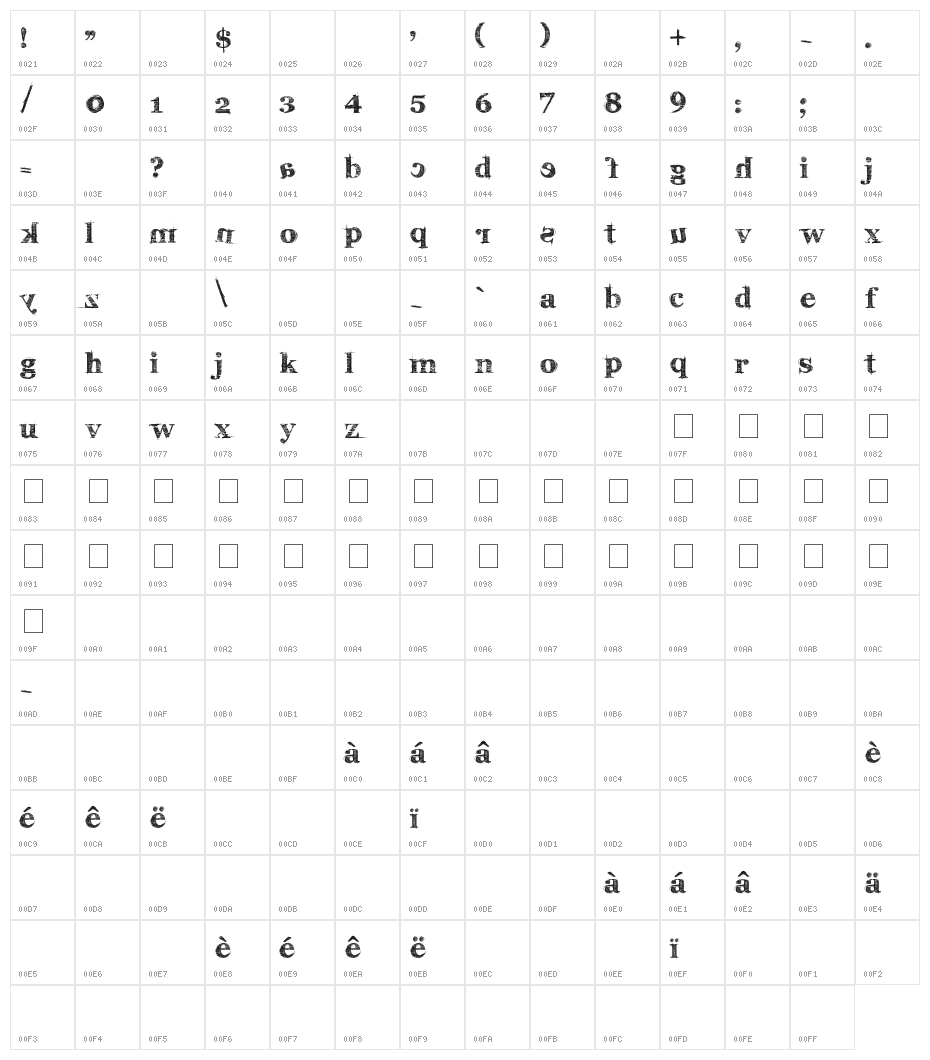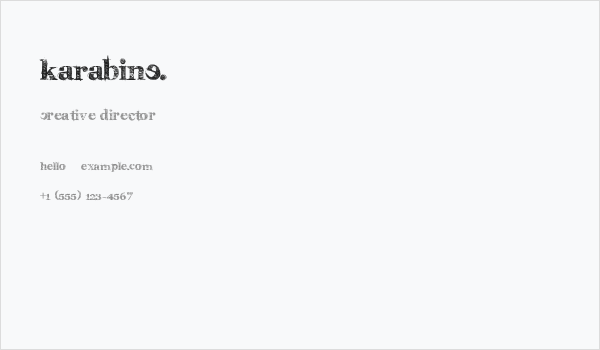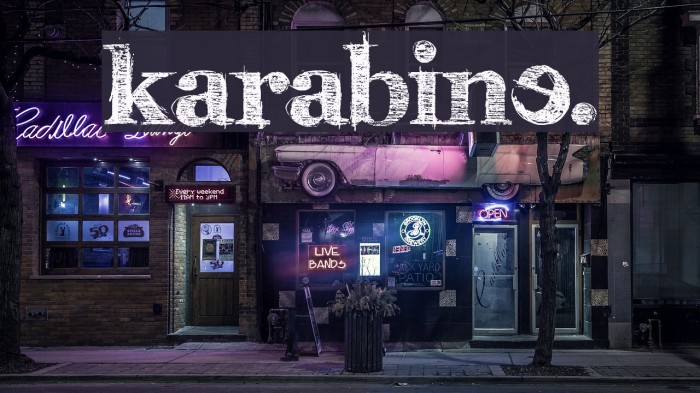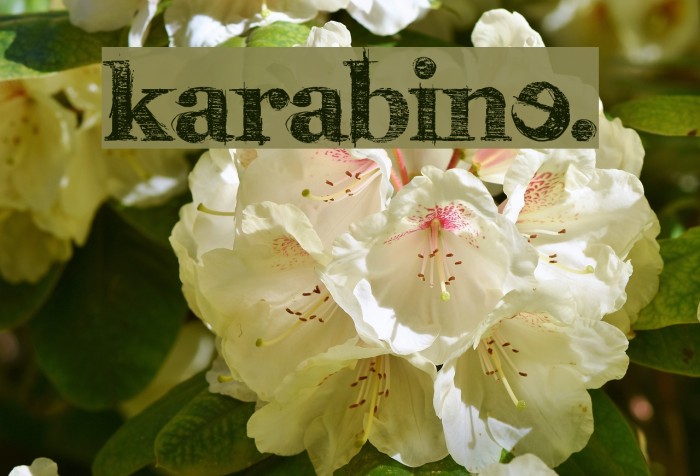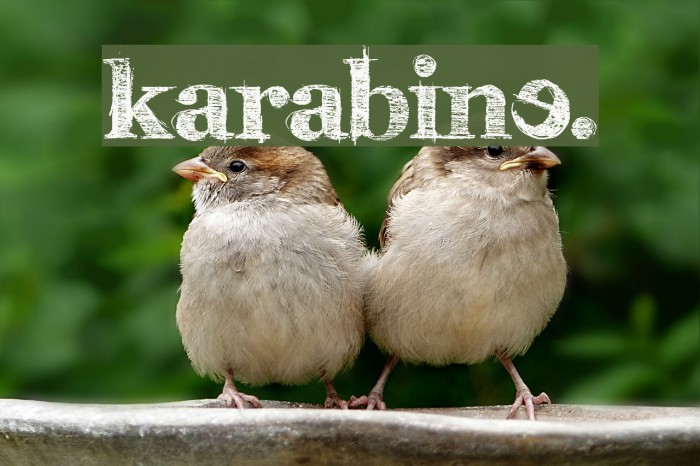
karabinE. Font
karabinE. Description
This font features a distressed, textured appearance that gives it a rugged and vintage feel. The characters are bold with a serif style, showcasing a unique blend of classic serif elements and a modern, grunge aesthetic. The texture within each letter adds depth and character, making it stand out in any design. The uppercase and lowercase letters maintain a consistent style, with numerals and special characters following suit. This font is ideal for projects that require a bold statement or a touch of nostalgia.
| Overall Style | Vintage |
| Proposed Projects | Perfect for vintage posters, album covers, branding for rustic-themed businesses, or any design needing a bold, textured look. |